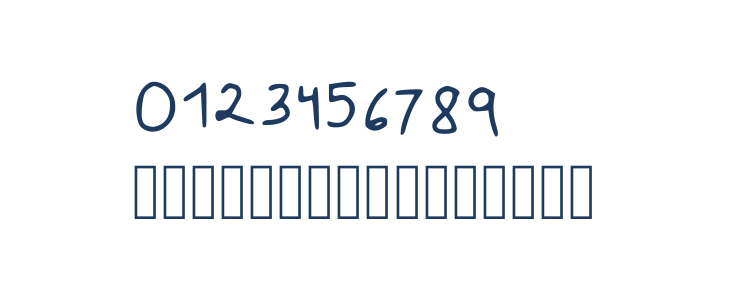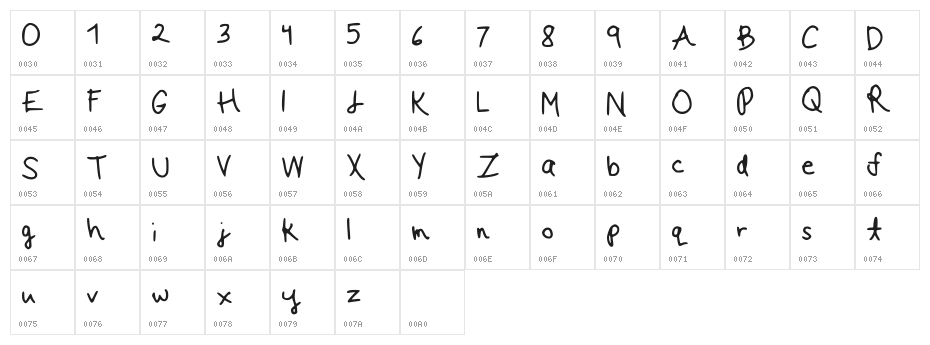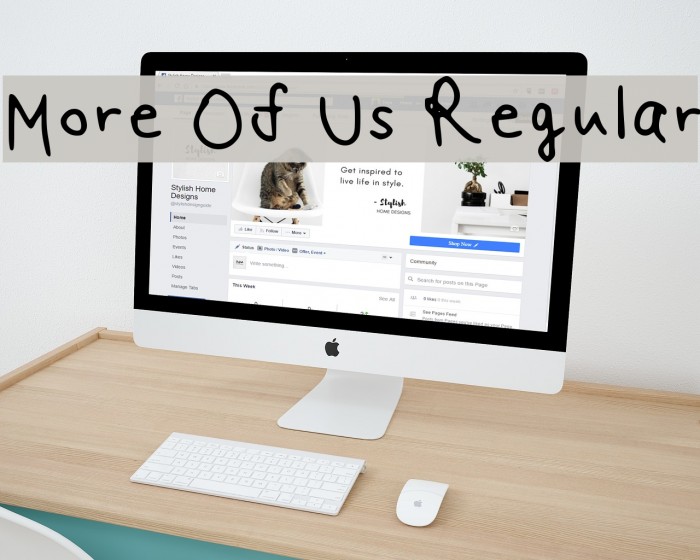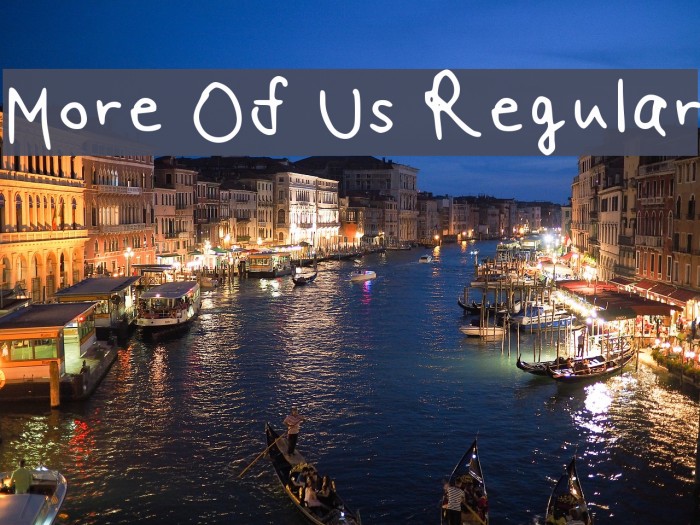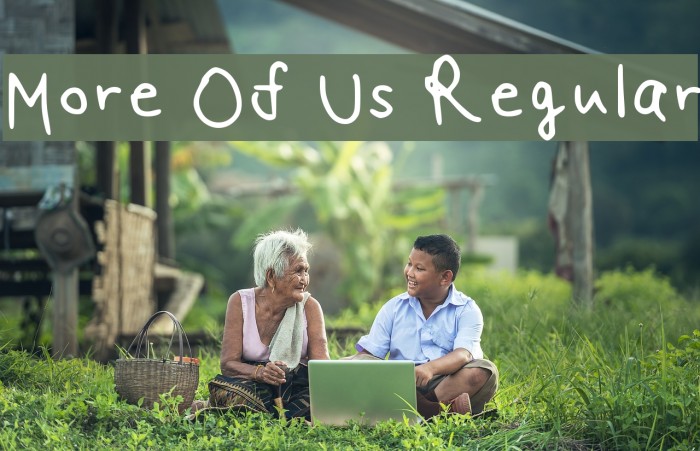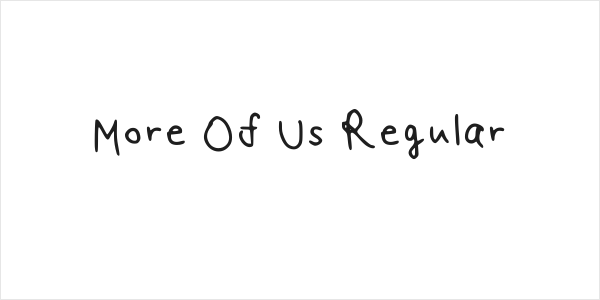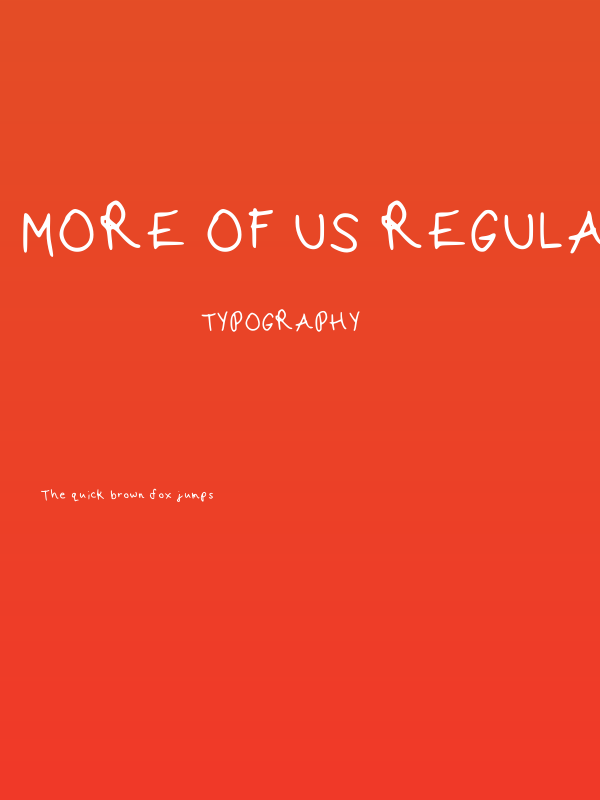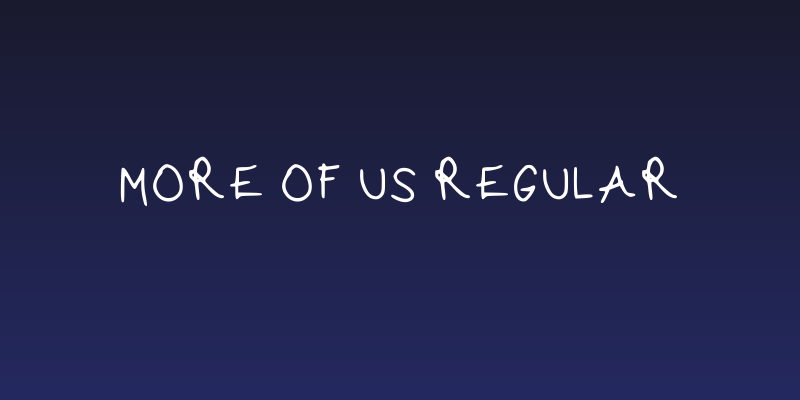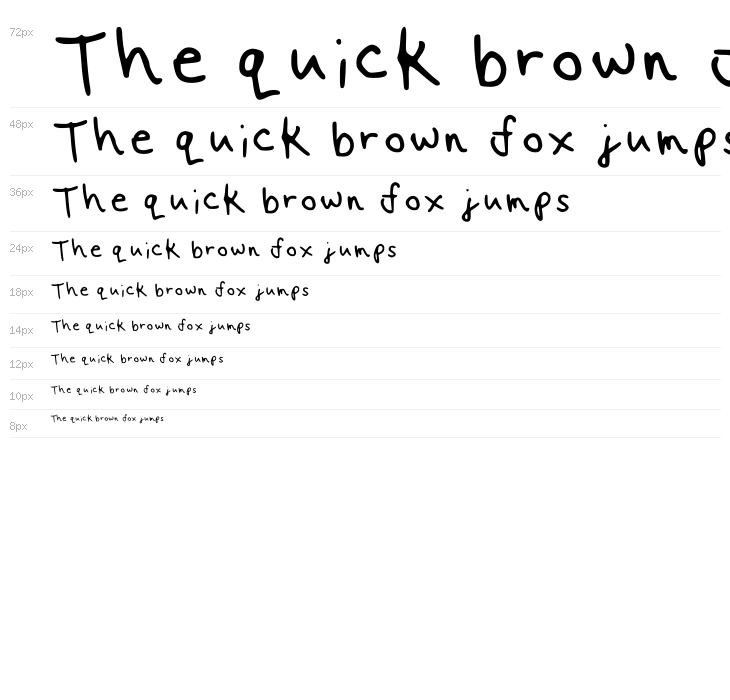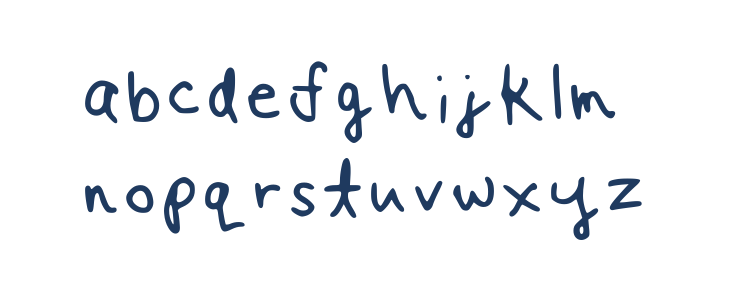
More Of Us Regular Font
More Of Us Regular Description
This font exudes a playful and casual handwritten style, characterized by its irregular strokes and organic flow. The letters are slightly tilted, giving a dynamic and lively appearance. The uppercase and lowercase letters maintain a consistent style, with rounded edges and varying stroke widths that add to its informal charm. The numbers follow the same playful aesthetic, making them easily readable yet visually engaging. The special characters are crafted with the same attention to detail, ensuring a cohesive look across all elements. This font is perfect for projects that require a personal touch or a sense of whimsy.